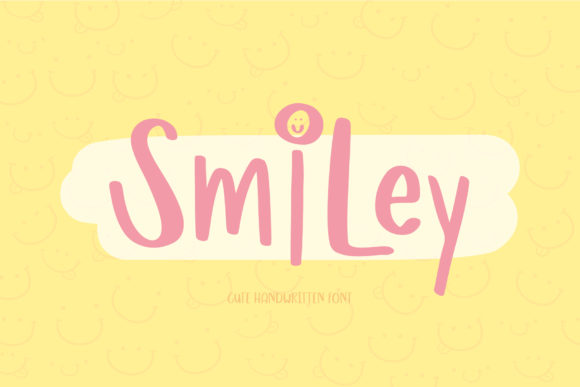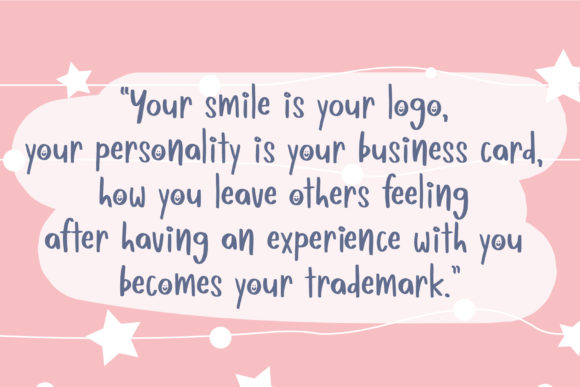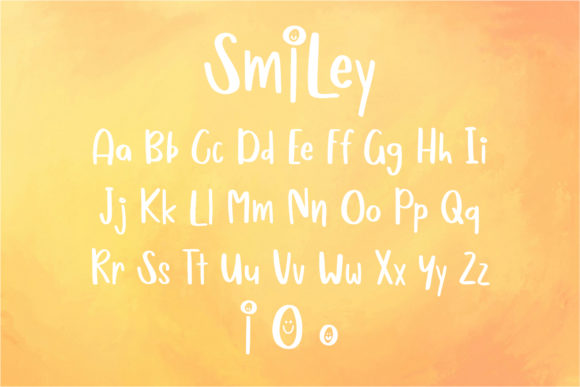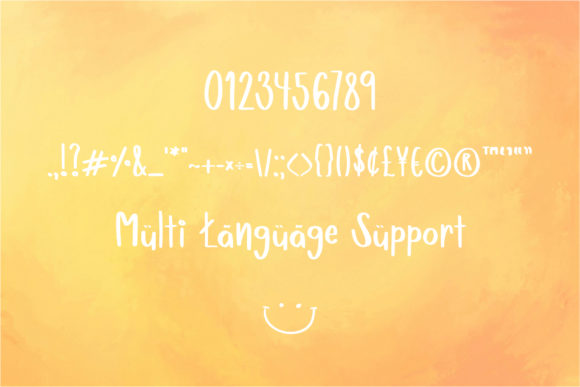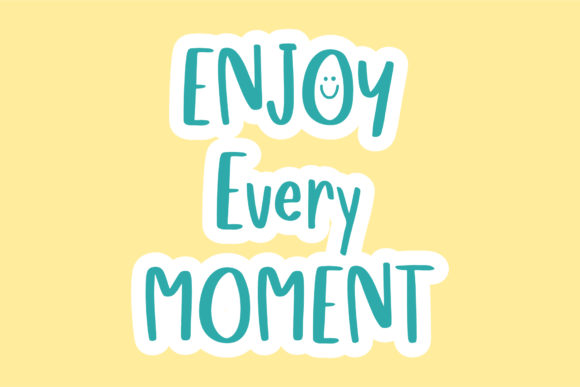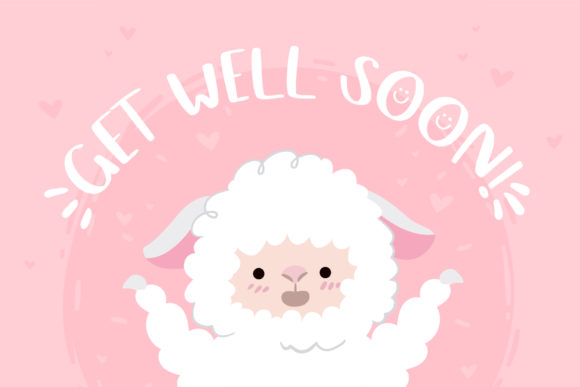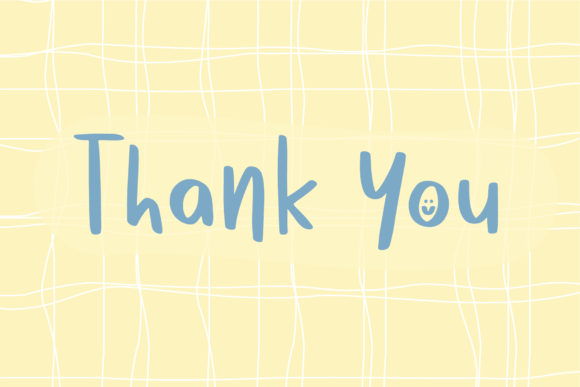
Smiley Font
About Smiley Font
Smiley is a cute and friendly handwritten font. A little bit quirky, this font is the perfect fit for all of your posters, t-shirts, invitations, quotes, social media, and crafty DIY projects.